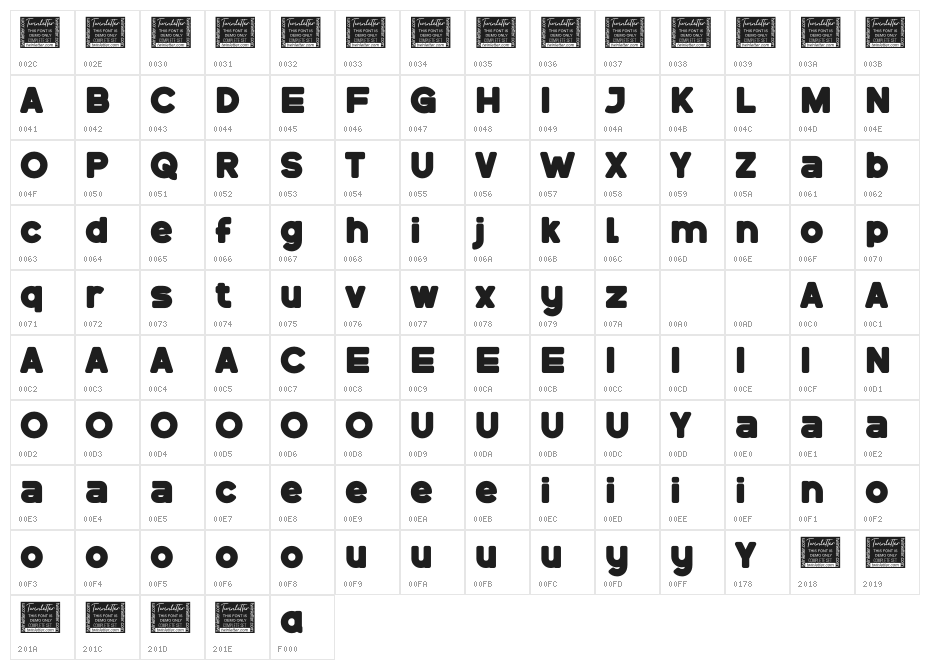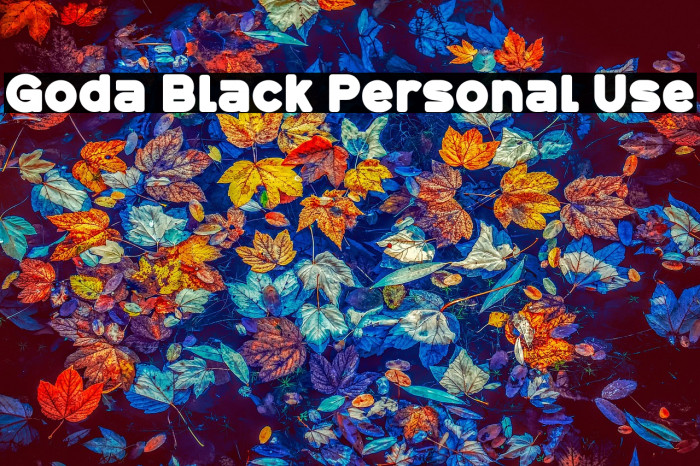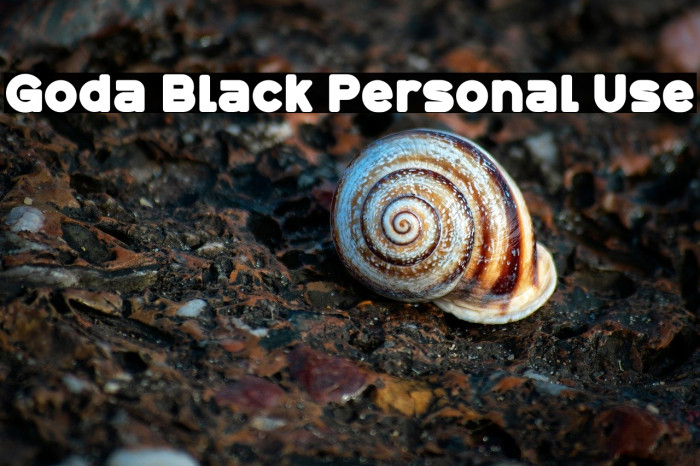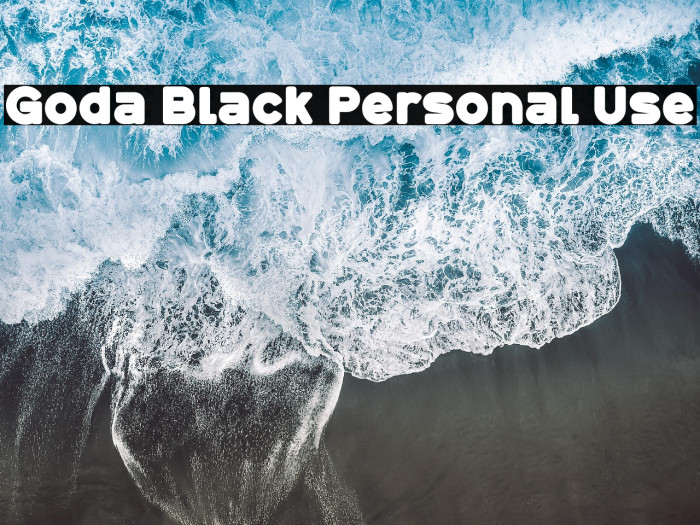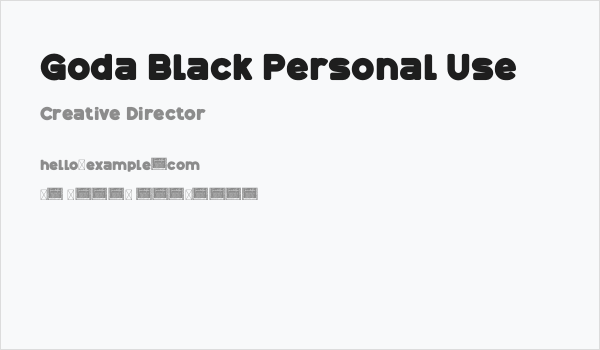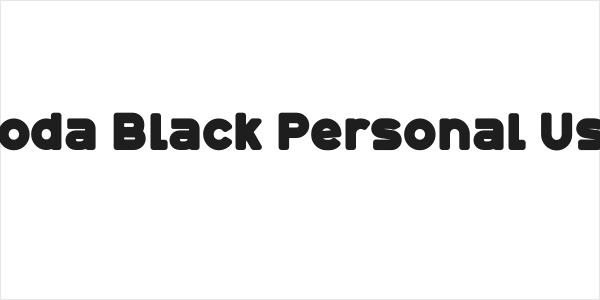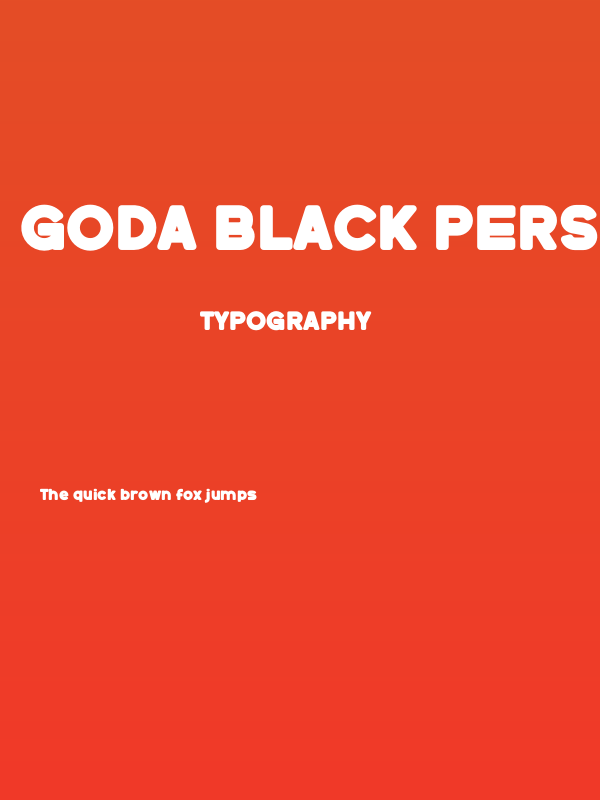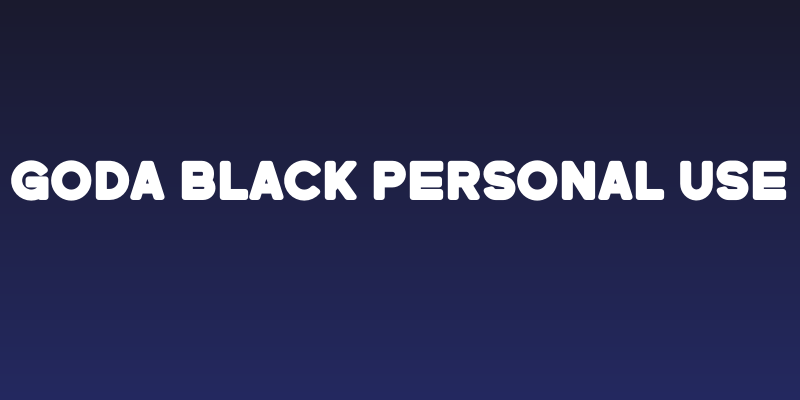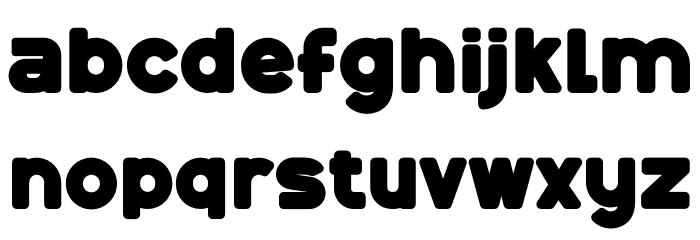
Goda Black Personal Use Font
Goda Black Personal Use Description
This font features bold, rounded characters with a modern and playful aesthetic. The uppercase and lowercase letters are consistent in their thickness, creating a uniform appearance. The rounded edges give it a friendly and approachable feel, making it suitable for various design applications. The numbers and special characters maintain the same bold style, ensuring cohesion across all elements. The overall design is clean and easy to read, making it versatile for both digital and print media.
| Proposed Projects | Ideal for branding, headlines, posters, and social media graphics. |